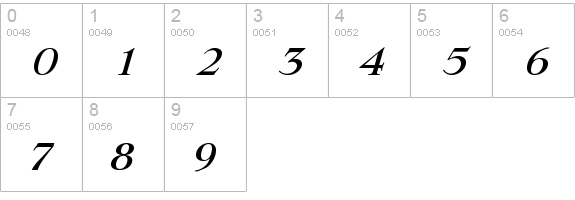
LingwoodEF-MediumItalic Font Details
LingwoodEF-MediumItalic is a graceful and versatile font that strikes the perfect balance between elegance and readability. Its stylish italicized design adds a touch of sophistication to any project, making it ideal for use in branding, editorial design, and more. The sleek curves and unique flourishes of LingwoodEF-MediumItalic make it a standout choice for those seeking a font that exudes a sense of modernity and sophistication. What's even better is that LingwoodEF-MediumItalic is available for free download at FontsMarket.com. This means that you can easily access this high-quality font to elevate your designs without any cost. Don't miss out on the opportunity to add LingwoodEF-MediumItalic to your font collection and bring a touch of sophistication to your projects.